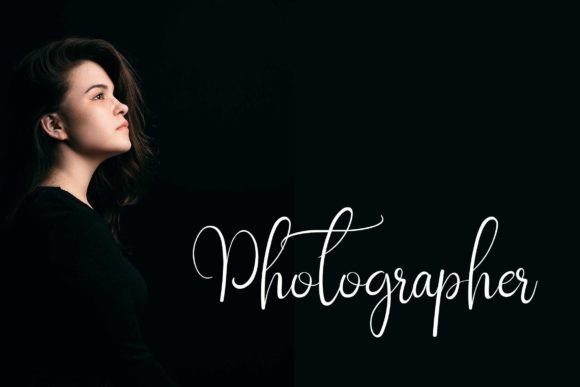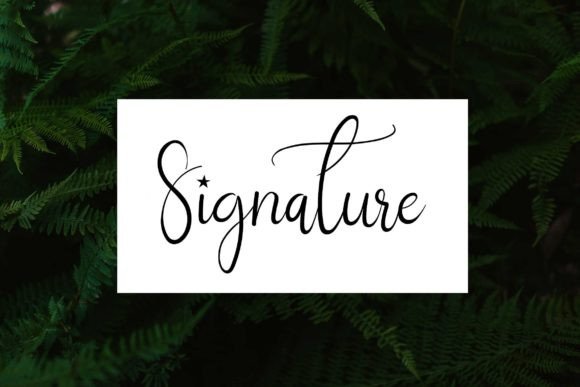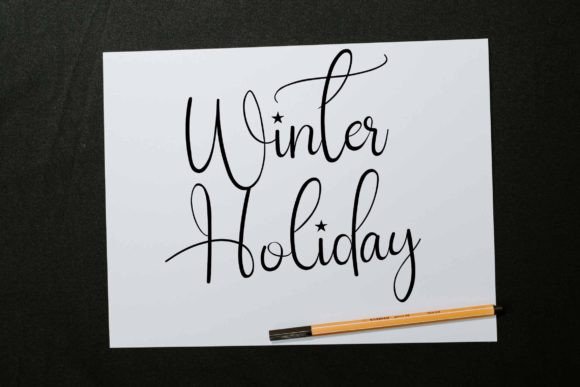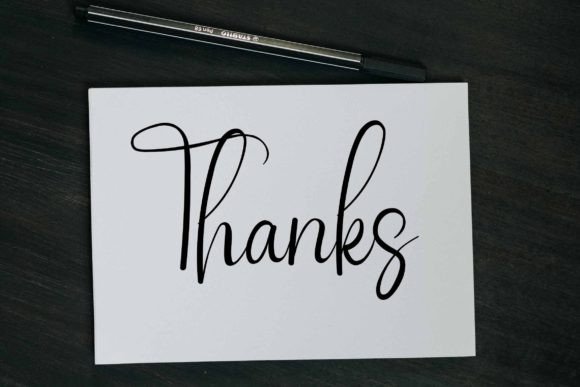
About Passion Font
Passion sounds like a delightful addition to any font collection, combining beauty with simplicity. The versatility you mention, from creating greeting cards to watermarks and wedding designs, indicates that it’s a font well-suited for a range of creative applications.
The fact that Passion is PUA encoded adds an extra layer of convenience for users, allowing easy access to a variety of glyphs and ligatures. This feature enhances the font’s flexibility, making it user-friendly for designers who want to explore and customize their projects with a diverse set of characters.
Adding Passion to a favorite font collection is a great recommendation, especially for those who appreciate the balance between elegance and simplicity in handwritten fonts. Such fonts often bring a personal and warm touch to designs, making them suitable for a wide array of creative projects.
Whether it’s enhancing the charm of greeting cards, adding a personalized watermark to your work, or creating beautiful wedding designs, Passion seems to offer the versatility needed to excel in these creative endeavors. Enjoy incorporating this font into your projects, and may it contribute to the success and visual appeal of your designs!